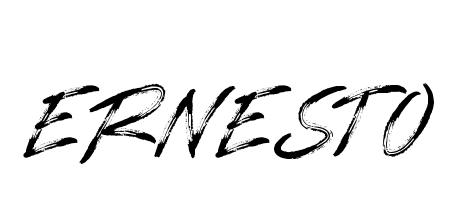
ERNESTO
ERNESTO: A bold, hand-drawn script font exudes raw energy and effortless cool. Its slightly uneven strokes suggest a spontaneous, expressive style, ideal for titles, logos, or anything needing a touch of rebellious charm. The slightly textured finish adds a vintage feel, making it versatile for both modern and retro designs.